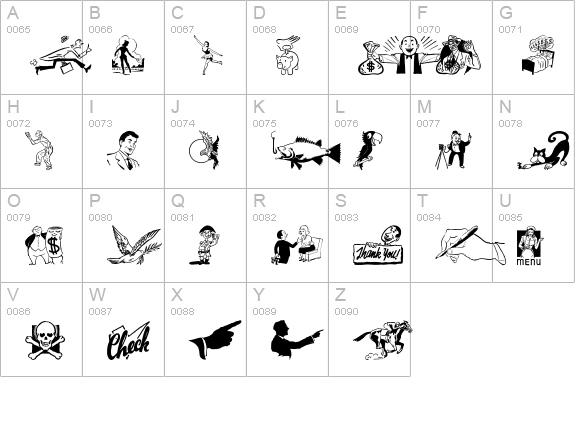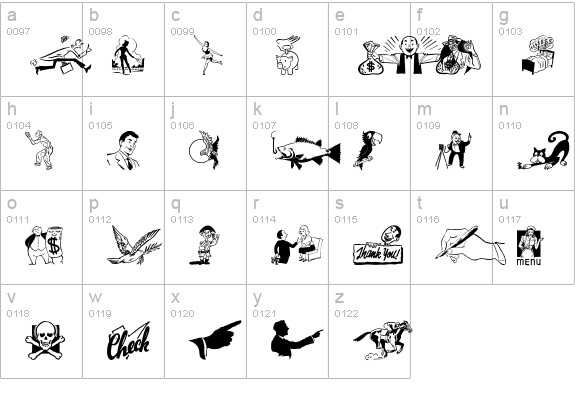
Cobb Shinn Stock Cuts VII font is a versatile and unique typeface that exudes elegance and sophistication. With its intricate designs and stylish flourishes, this font is perfect for adding a touch of charm to any project. Whether you're creating invitations, logos, or signage, Cobb Shinn Stock Cuts VII font will make your text stand out. The best part? This exquisite font is available for free download at FontsMarket.com. You can easily access this stunning typeface and elevate your designs without any cost. Don't miss out on the opportunity to enhance your projects with the beauty of Cobb Shinn Stock Cuts VII font today!